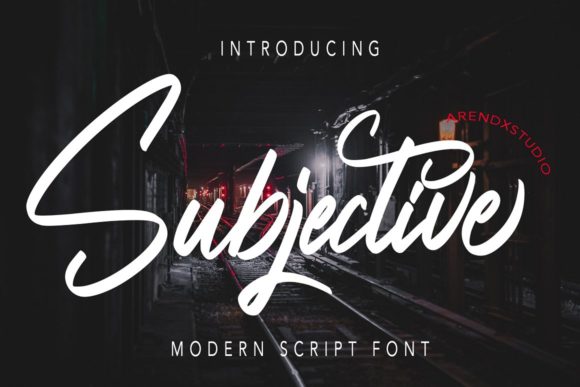
Prepare yourself to be mesmerized by Subjective, a captivating script font family that is the epitome of grace and elegance. This exquisite creation from Arendxstudio is a visual masterpiece, meticulously crafted with sweeping curves and delicate strokes that evoke a sense of timeless beauty. Subjective is not merely a font; it's an artistic expression that breathes life into your creative endeavors.
Step into a world of sophistication and charm as Subjective transforms your designs into works of art. Its gentle flow and organic texture exude a romantic and inviting aura, making it the perfect choice for wedding invitations, greeting cards, branding materials, and any project that demands a touch of refinement. Subjective's inherent versatility extends beyond aesthetics, seamlessly adapting to a myriad of styles and genres.
With Subjective by your side, your projects will radiate a captivating allure that resonates with audiences. Its undeniable charm will leave a lasting impression, elevating your designs from ordinary to extraordinary. Experience the transformative power of Subjective and unleash your creativity like never before.
* Cursive and beautiful handwritten font
* Smooth curves and delicate strokes
* Perfect for fashion branding and editorial designs
* Versatile and adaptable to various styles and genres
* Adds a touch of sophistication and elegance to any project